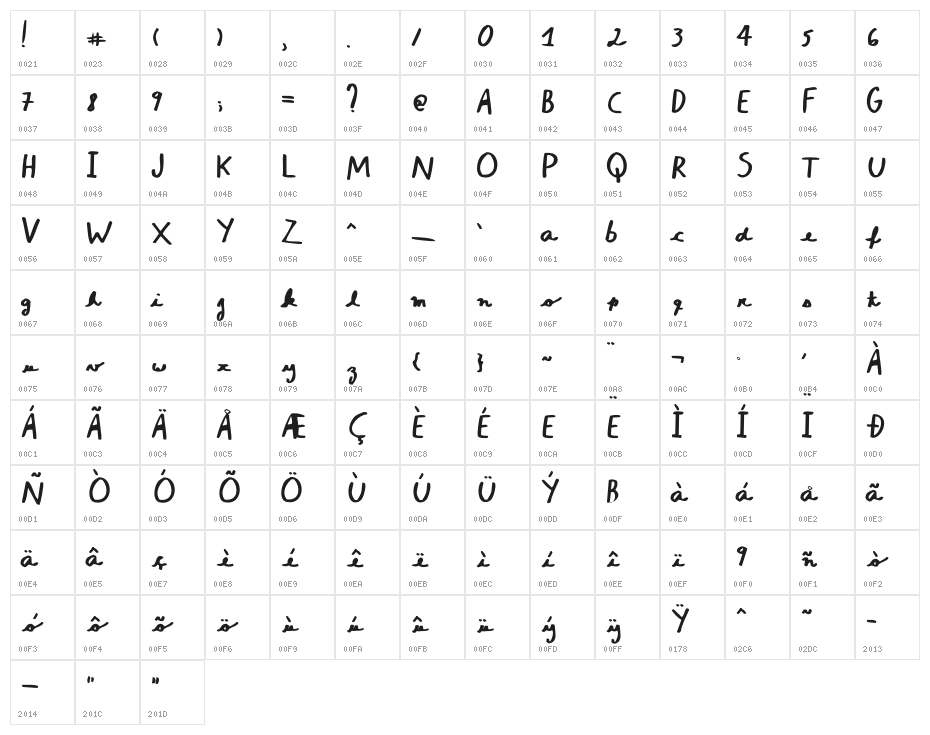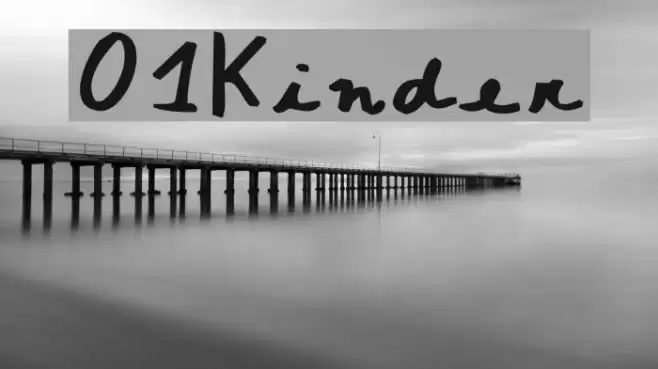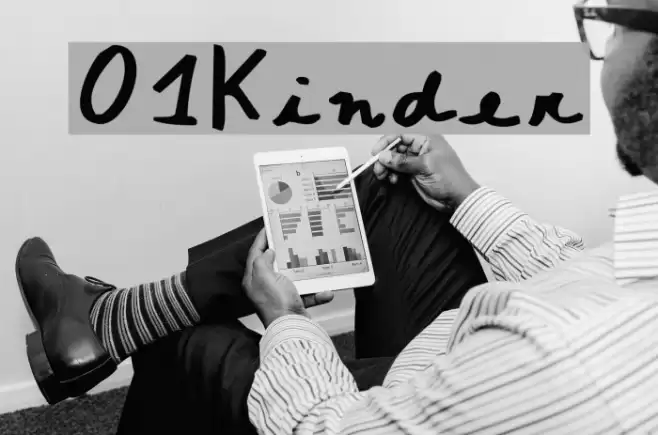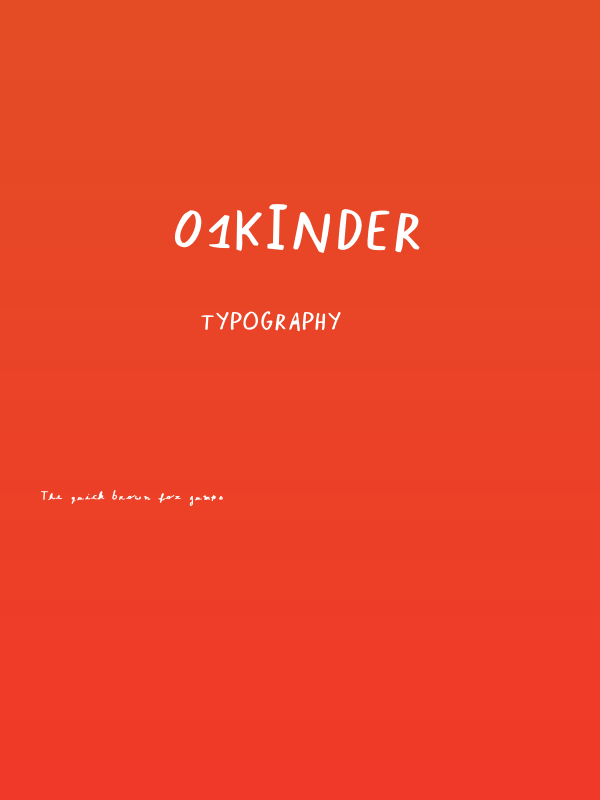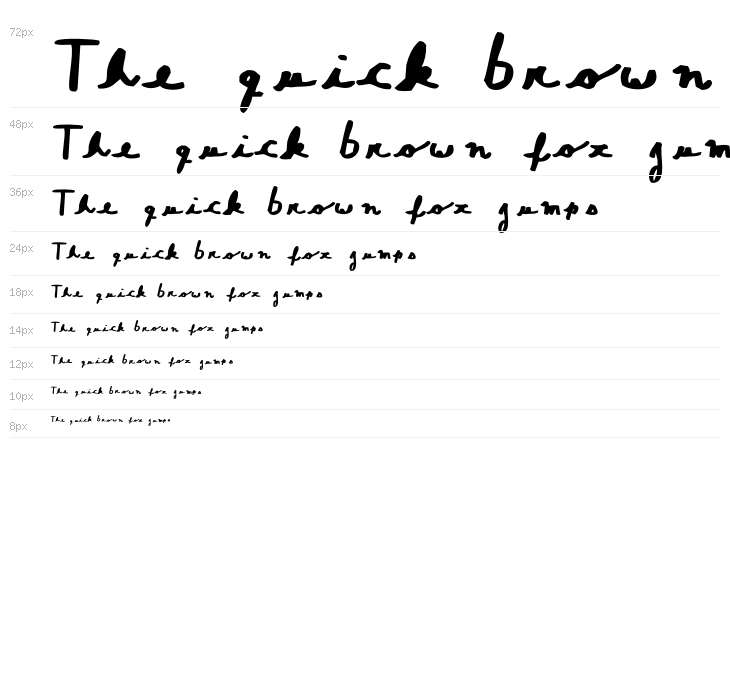
01Kinder Font
01Kinder Description
This font features a playful and informal handwritten style, characterized by its uneven strokes and casual appearance. The uppercase letters are bold and slightly irregular, giving a sense of spontaneity and energy. The lowercase letters maintain a consistent flow, with some characters extending slightly below the baseline, adding to the font's dynamic feel. The numbers are clear and legible, while the special characters retain the same whimsical quality. Overall, this font exudes a friendly and approachable vibe, making it suitable for projects that require a personal touch.
| Proposed Projects | Ideal for children's books, greeting cards, playful branding, and informal invitations. |